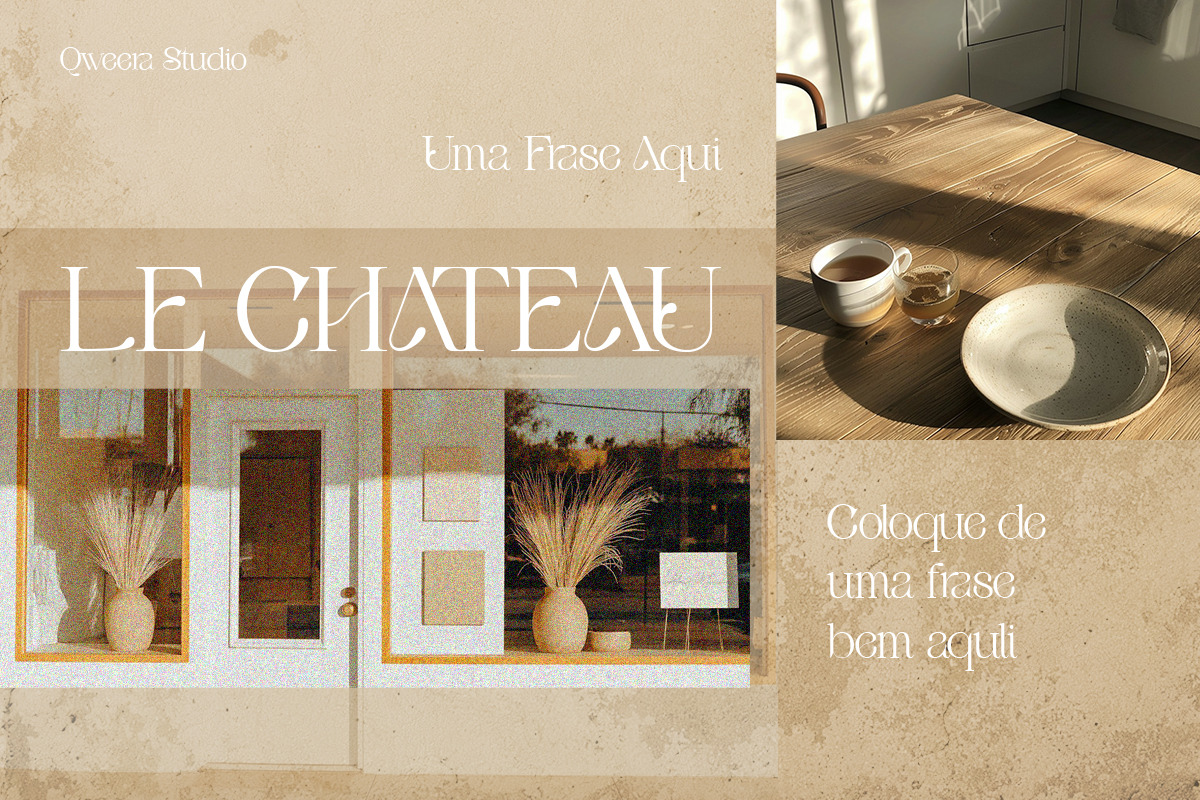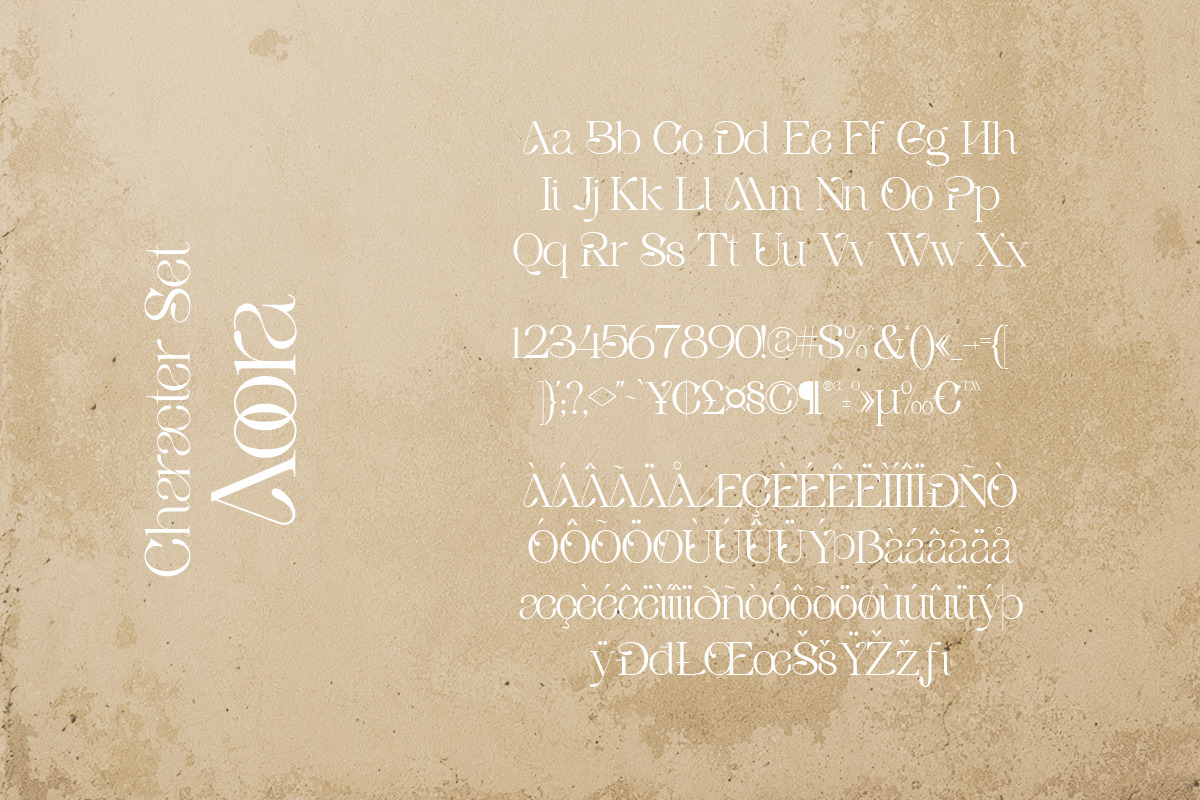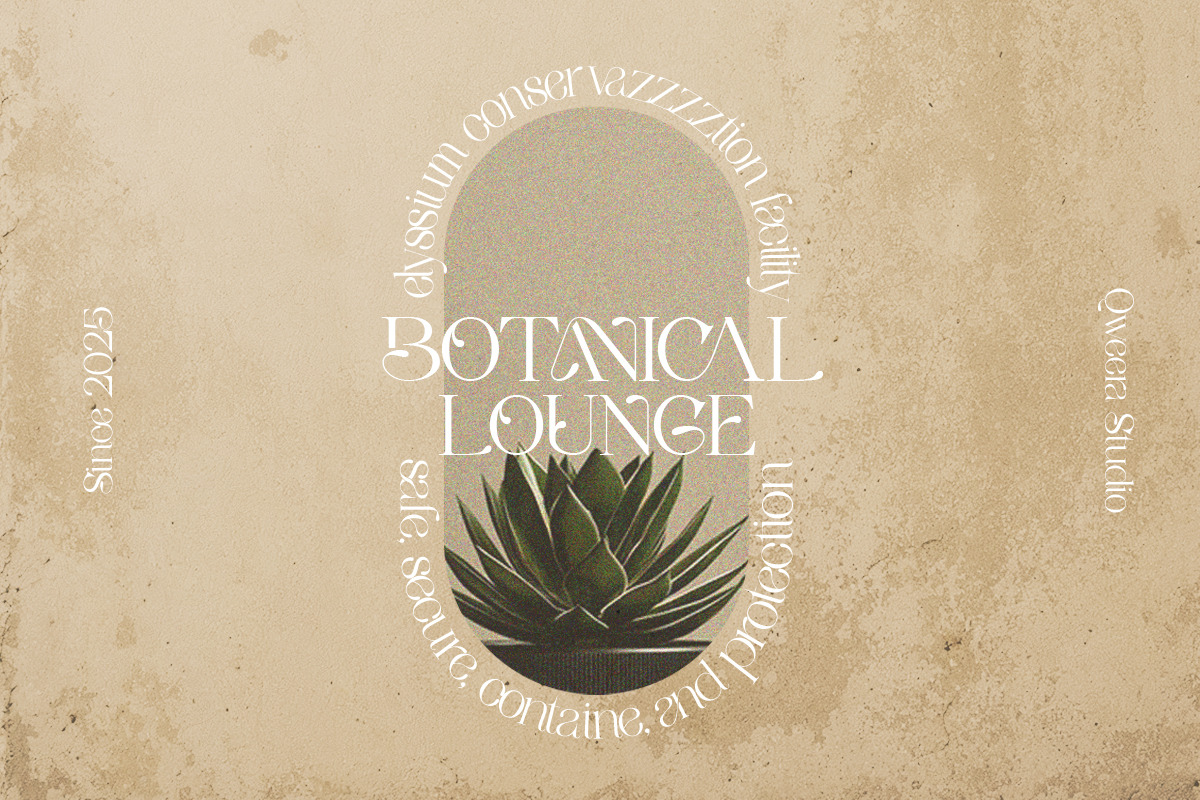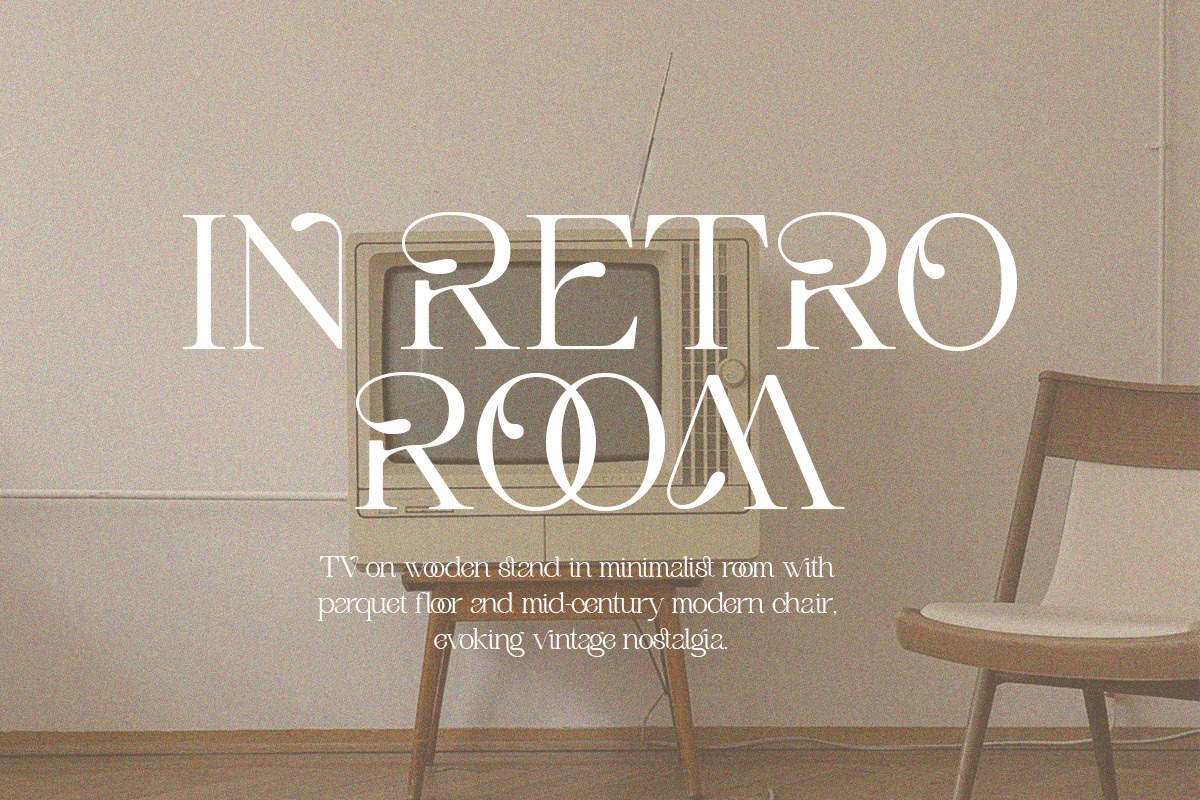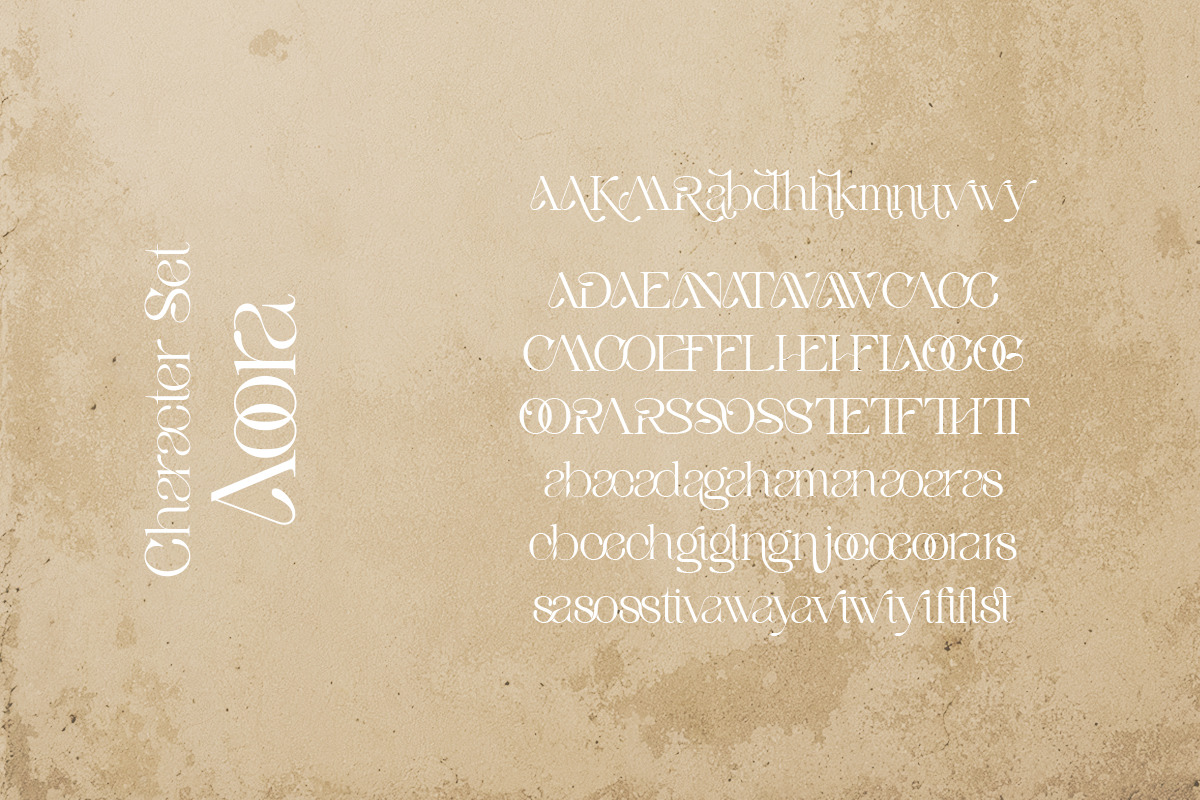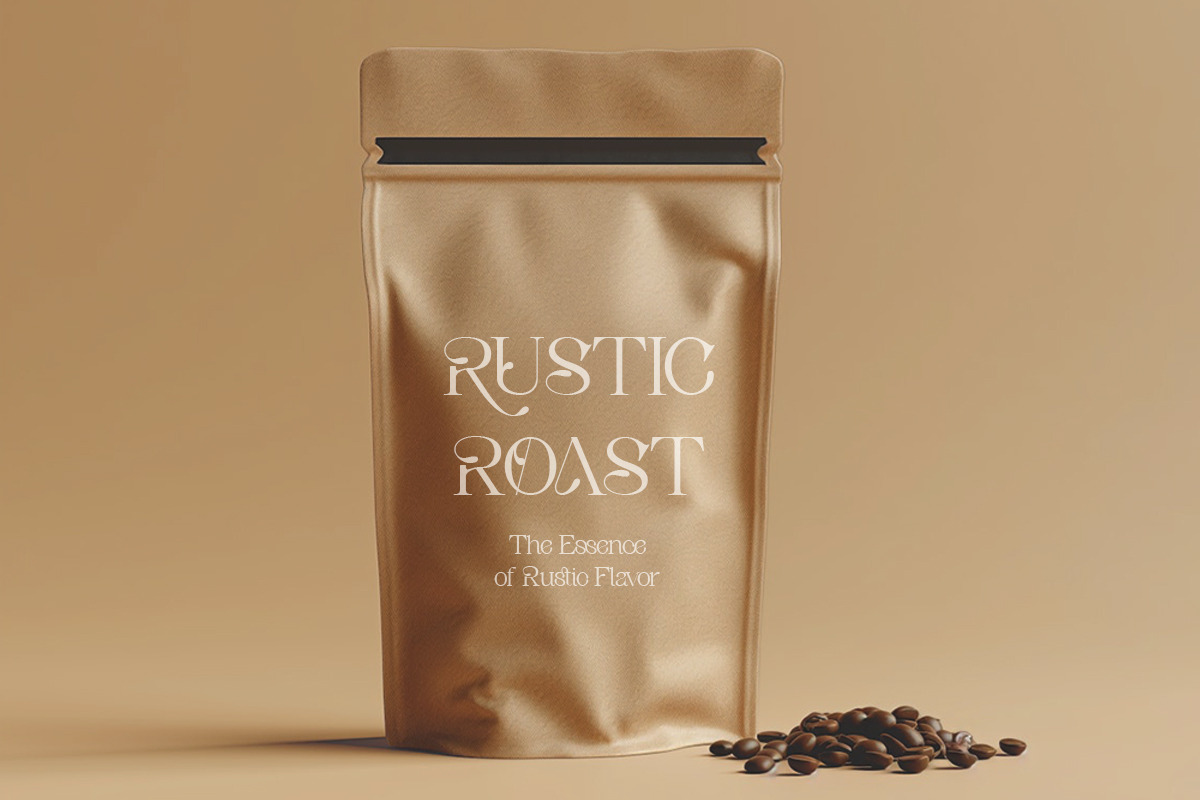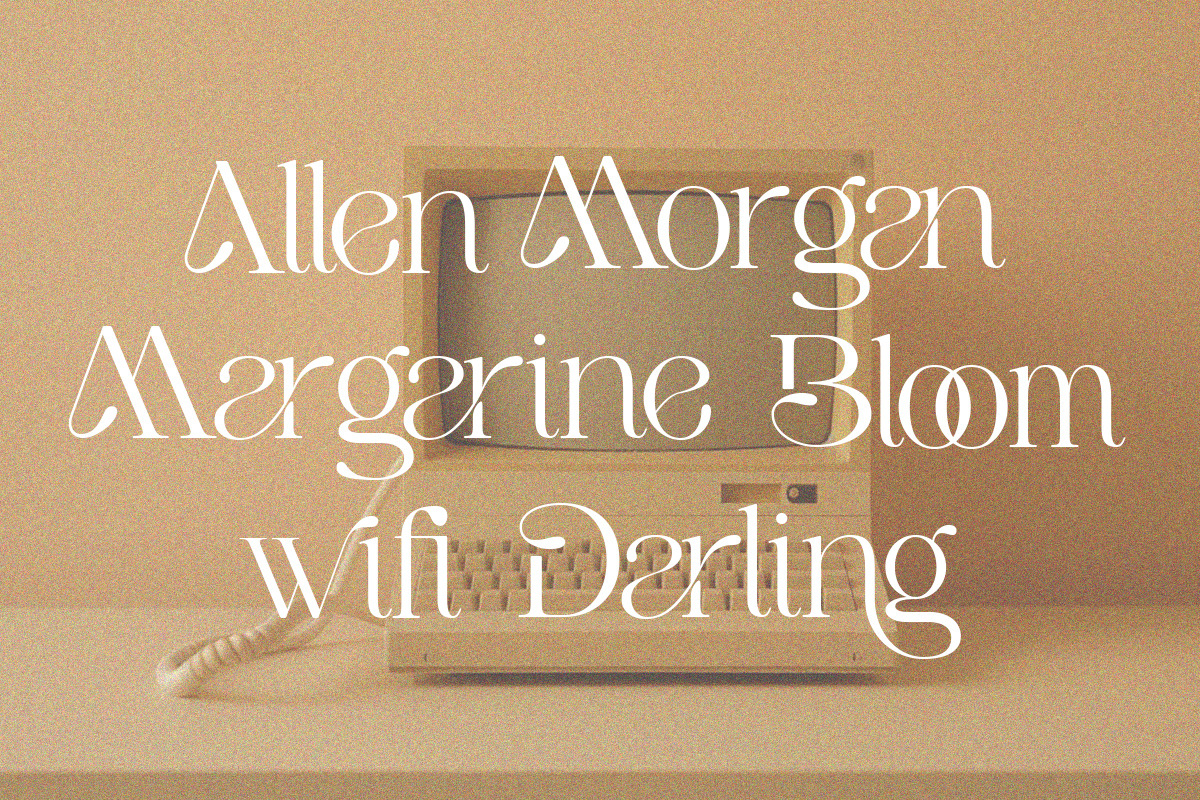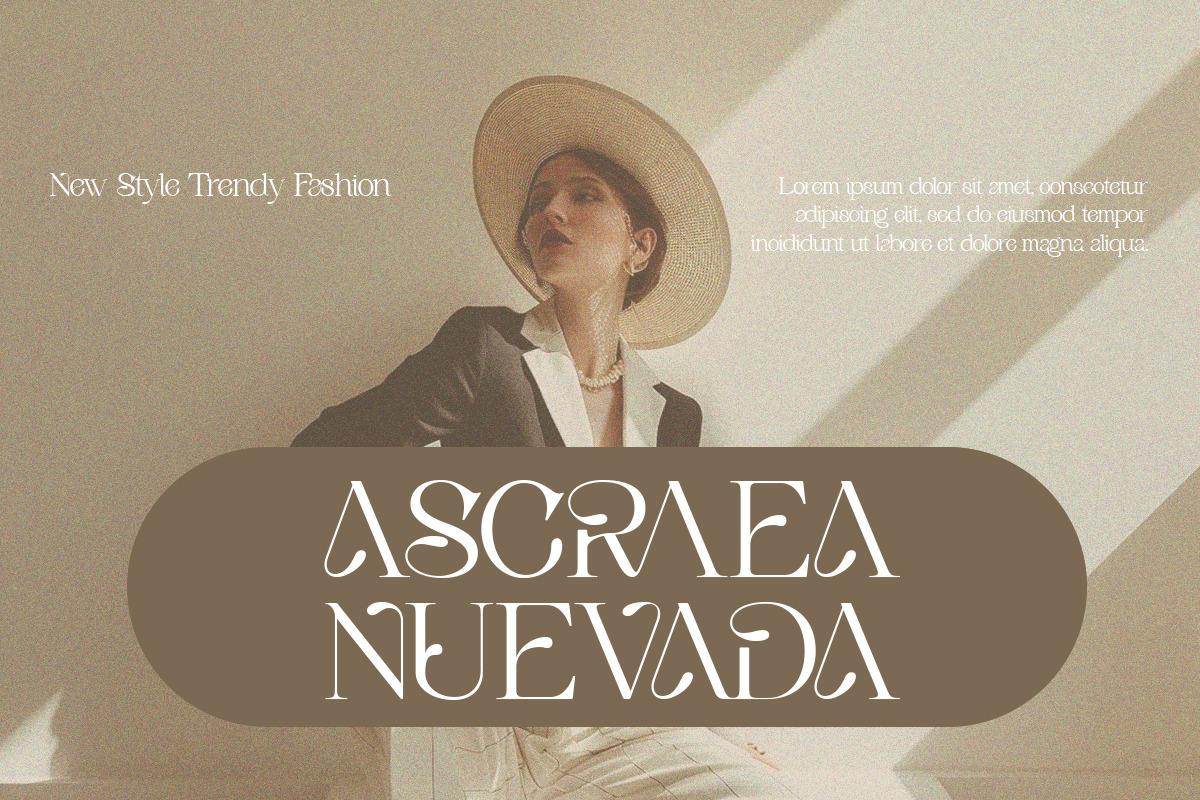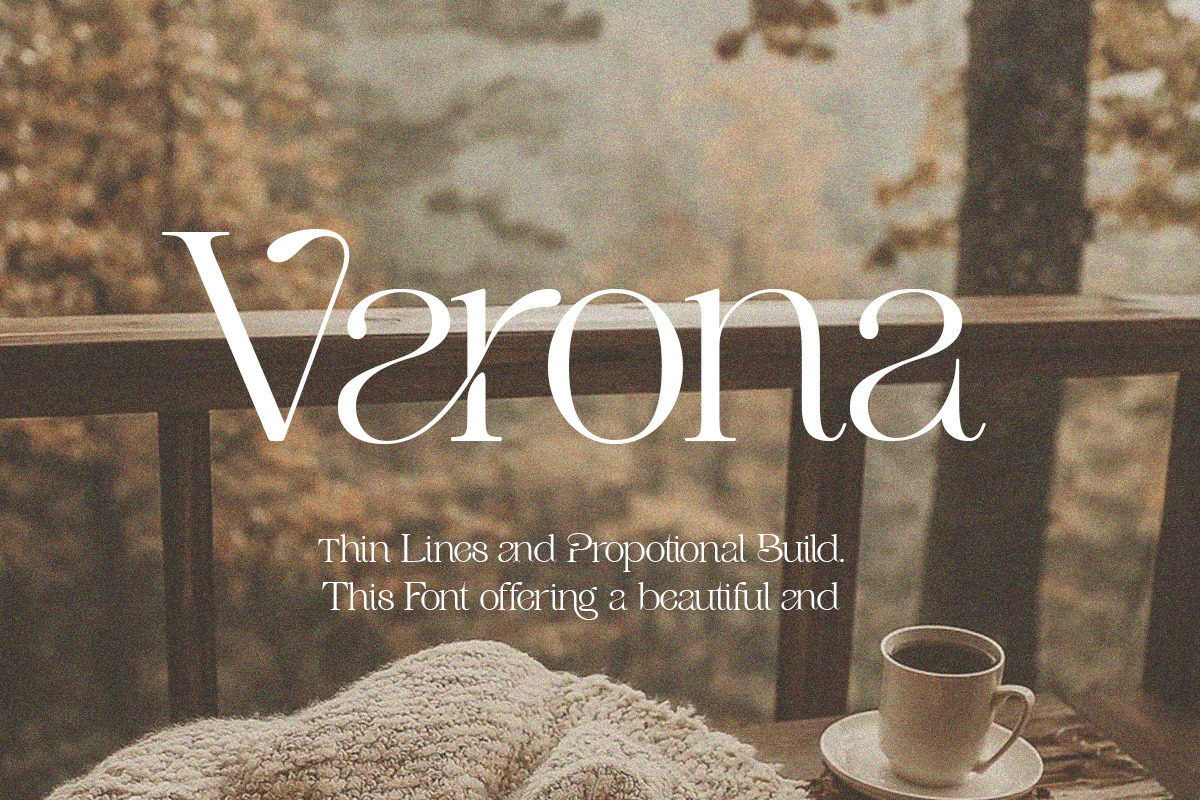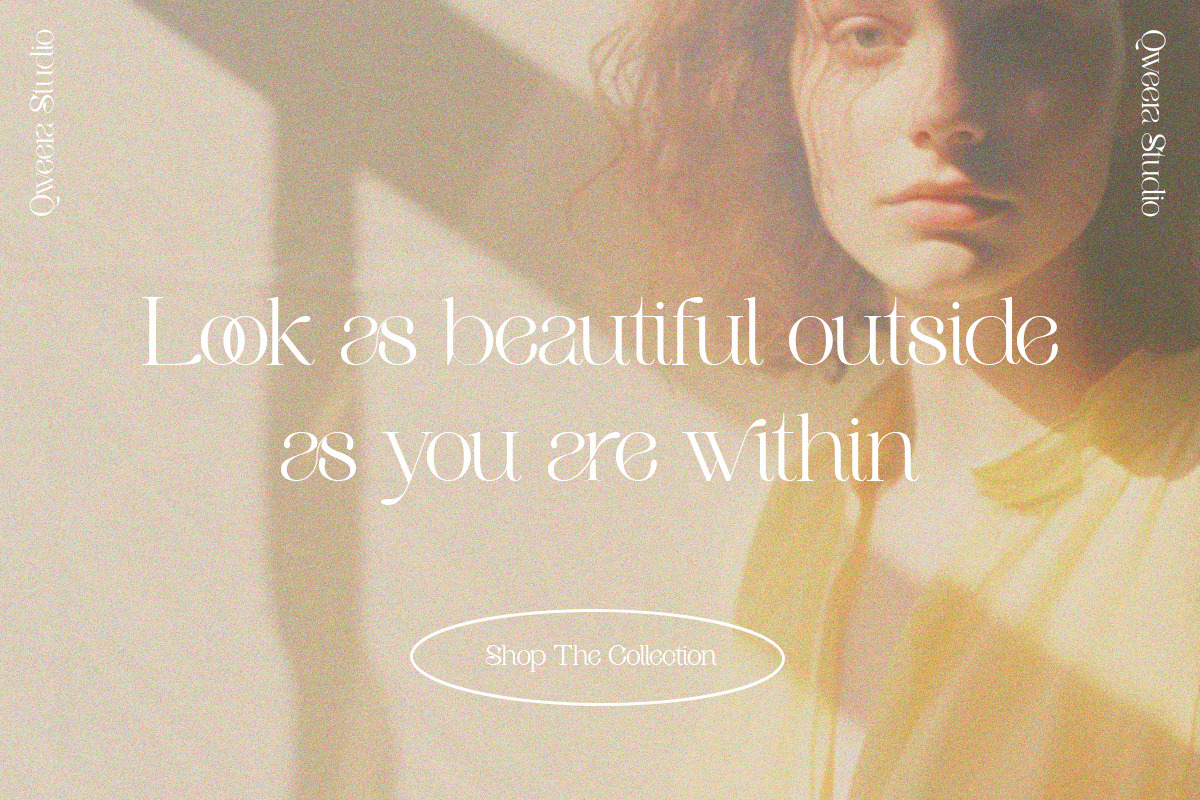
Aoora - Modern Luxury Serif
Aoora – Modern Luxury Serif Font for Timeless Elegance
Aoora is more than just a font—it’s a masterpiece of modern luxury serif design, crafted to elevate your projects with sophistication and style. With its clean lines, exquisite details, and versatile functionality, Aoora is the perfect choice for high-end branding, editorial design, and luxury packaging. Whether you’re creating a sleek logo or a polished editorial layout, this font ensures your work radiates timeless elegance and contemporary flair.
Where Modern Luxury Meets Timeless Sophistication
Aoora stands out with its refined alternates and ligatures, offering endless creative possibilities. Its versatility makes it ideal for projects that demand a touch of luxury and individuality, from corporate branding to editorial masterpieces. This font isn’t just a tool—it’s a statement of modern elegance and design excellence.
- Modern Luxury Serif Design – Perfect for high-end branding, editorial projects, and luxury packaging.
- Regular & Italic Versions – Versatile options for a variety of design needs.
- Exquisite Alternates & Ligatures – Add a unique and personalized touch to your designs.
- Multilingual Support – Compatible with over 20 languages, including English, French, German, Spanish, and more.
Elevate Your Designs with Aoora Aoora isn’t just a font—it’s a tool to transform your creative projects into modern luxury masterpieces. Whether you’re crafting a luxury brand identity, designing editorial layouts, or creating standout packaging, Aoora ensures your work stands out with unmatched elegance and sophistication.